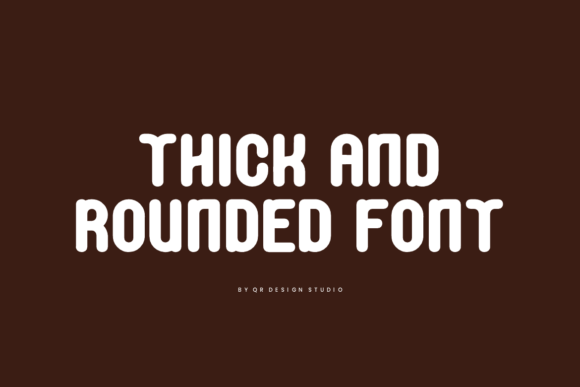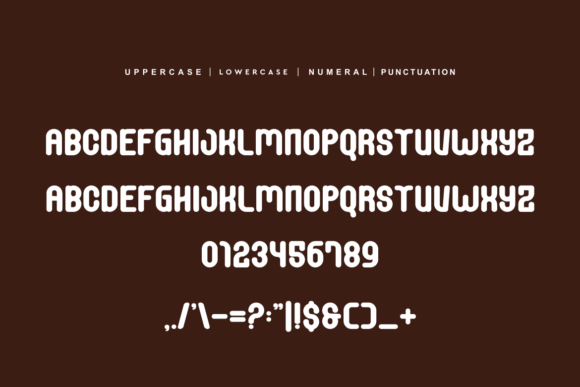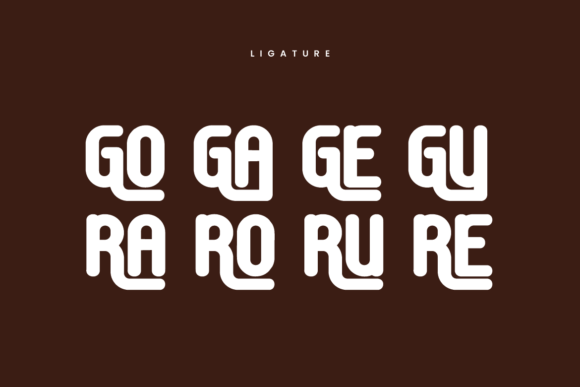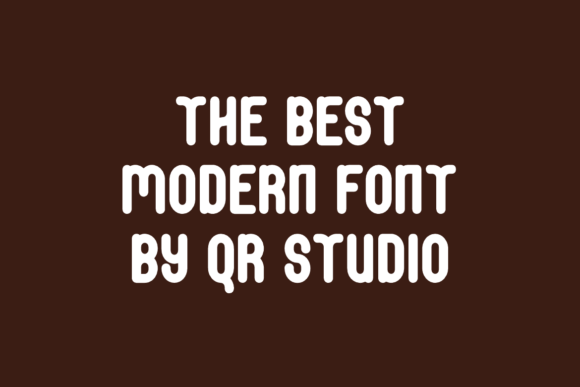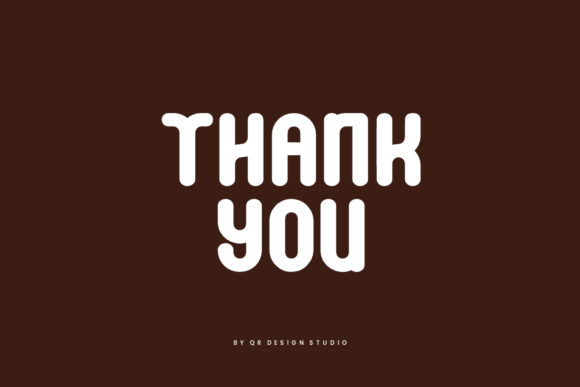
Introducing Chalke Comics Font: The Ultimate Design Companion
Are you a designer, crafter, or DIY enthusiast looking for a font that can add a touch of sweetness and friendliness to your projects? Look no further than Chalke Comics Font! This rounded sans serif font is a game-changer, offering a unique and natural style that can elevate a wide range of designs. In this article, we’ll dive into the world of Chalke Comics Font, exploring its features, benefits, and uses.
What is Chalke Comics Font?
Chalke Comics Font is a carefully crafted, rounded sans serif font that exudes a sense of warmth and approachability. Its smooth, rounded edges and clean lines make it perfect for designs that require a friendly and inviting feel. Whether you’re working on a logo, branding materials, or digital projects, Chalke Comics Font is an excellent choice.
Key Features of Chalke Comics Font
- Rounded Sans Serif: Chalke Comics Font features rounded edges and clean lines, giving it a soft and friendly appearance.
- Unique and Natural Style: The font’s unique style makes it stand out from other sans serif fonts, adding a touch of personality to your designs.
- Highly Versatile: Chalke Comics Font can be used for a wide range of designs, from logos and branding materials to digital projects and crafts.
- Easy to Read: The font’s clear and clean lines make it easy to read, even at small sizes.
Benefits of Using Chalke Comics Font
So, why choose Chalke Comics Font for your design projects? Here are just a few benefits:
- Adds a Touch of Personality: Chalke Comics Font can add a touch of personality and whimsy to your designs, setting them apart from more traditional fonts.
- Perfect for Kids’ Projects: The font’s playful and friendly style makes it perfect for kids’ projects, such as children’s books, educational materials, and kids’ websites.
- Suitable for Branding: Chalke Comics Font can be used for branding materials, such as logos, business cards, and letterheads, to create a friendly and approachable brand image.
- Great for Digital Projects: The font is optimized for digital use, making it perfect for website designs, social media graphics, and digital marketing materials.
Uses of Chalke Comics Font
Chalke Comics Font is an incredibly versatile font that can be used for a wide range of design projects, including:
- Logos and Branding: Use Chalke Comics Font to create a friendly and approachable brand image.
- Kids’ Projects: The font is perfect for kids’ books, educational materials, and kids’ websites.
- Digital Projects: Use Chalke Comics Font for website designs, social media graphics, and digital marketing materials.
- Crafts and DIY: The font is great for craft projects, such as handmade cards, gift tags, and DIY decorations.
Tips for Using Chalke Comics Font
Here are a few tips for getting the most out of Chalke Comics Font:
- Experiment with Colors: Chalke Comics Font looks great in a variety of colors, so don’t be afraid to experiment and find the perfect color scheme for your design.
- Mix and Match: Try pairing Chalke Comics Font with other fonts to create a unique and interesting design.
- Pay Attention to Size: Make sure to adjust the font size to suit your design, as Chalke Comics Font can look great at both large and small sizes.
In conclusion, Chalke Comics Font is a sweet and friendly rounded sans serif font that can add a touch of personality and whimsy to your design projects. Its natural and unique style makes it incredibly fitting to a large pool of designs, and its versatility makes it perfect for a wide range of projects. Whether you’re a designer, crafter, or DIY enthusiast, Chalke Comics Font is an excellent choice for any design project.